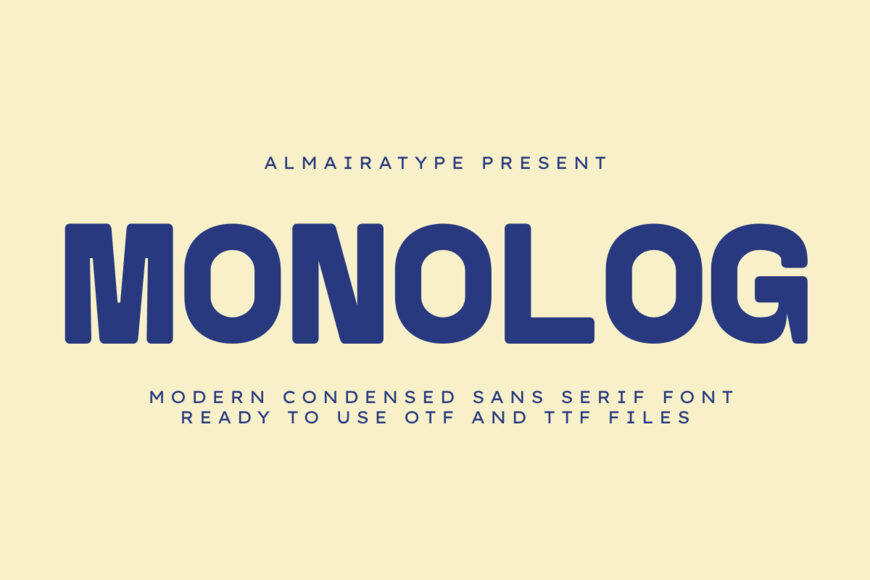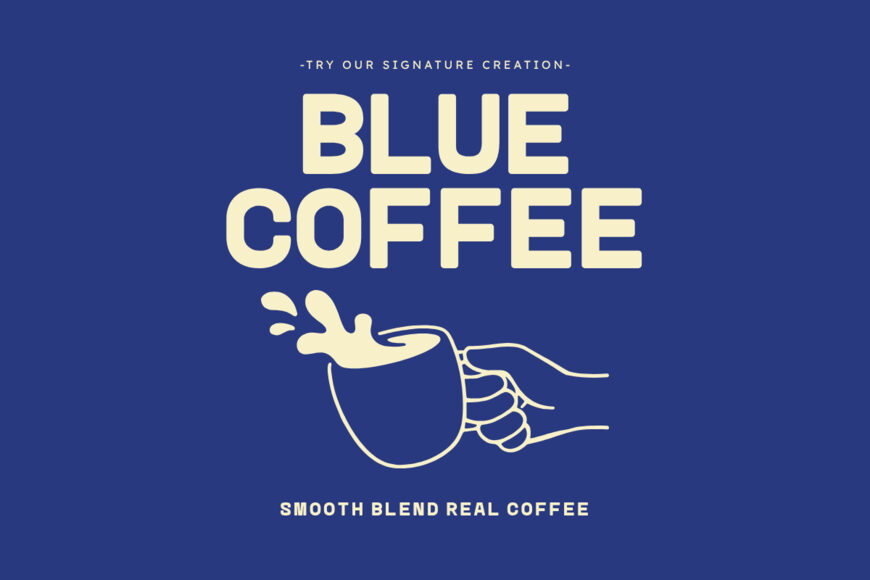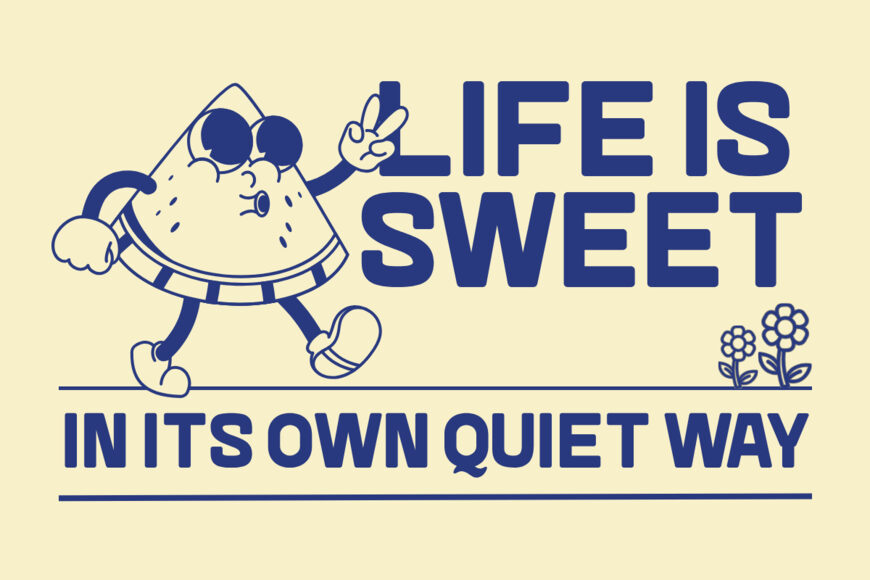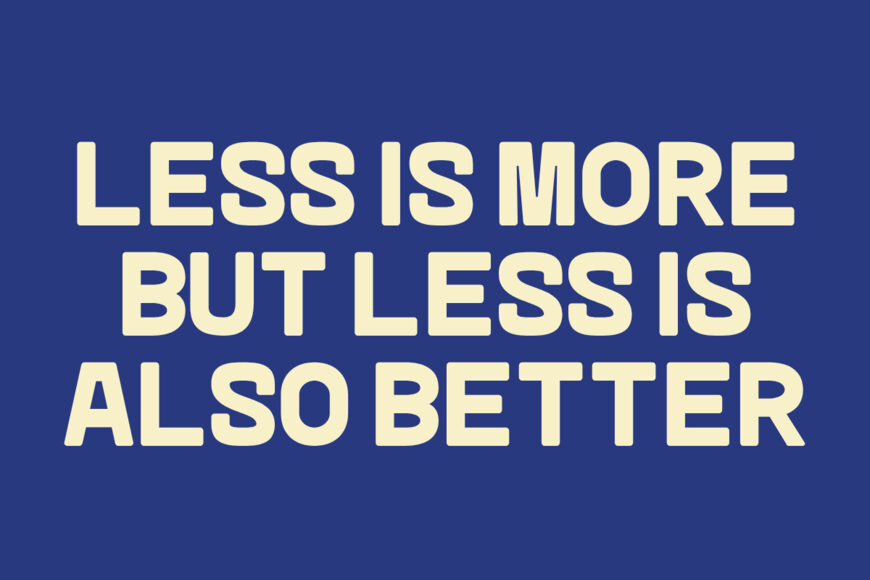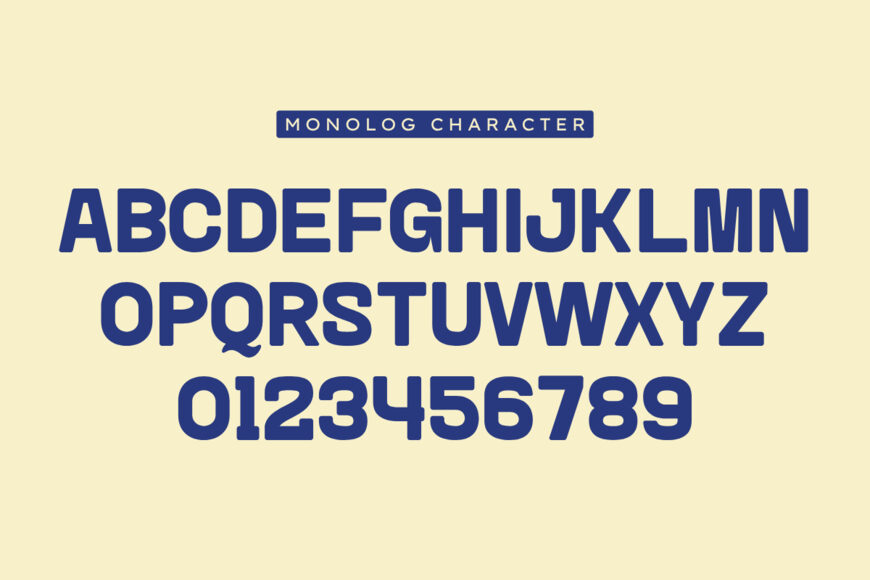
Make a bold, commanding, and sleek modern statement with Monolog, an ultra-bold modern condensed sans serif font engineered for creators who want their headlines to pop with a clean, confident charm.
Meticulously structured with a heavy display weight, balanced tall compressed baselines, and softly rounded corners, this versatile font brings an instant blend of contemporary sports-lifestyle aesthetics and clean modern urban professionalism to any creative canvas.